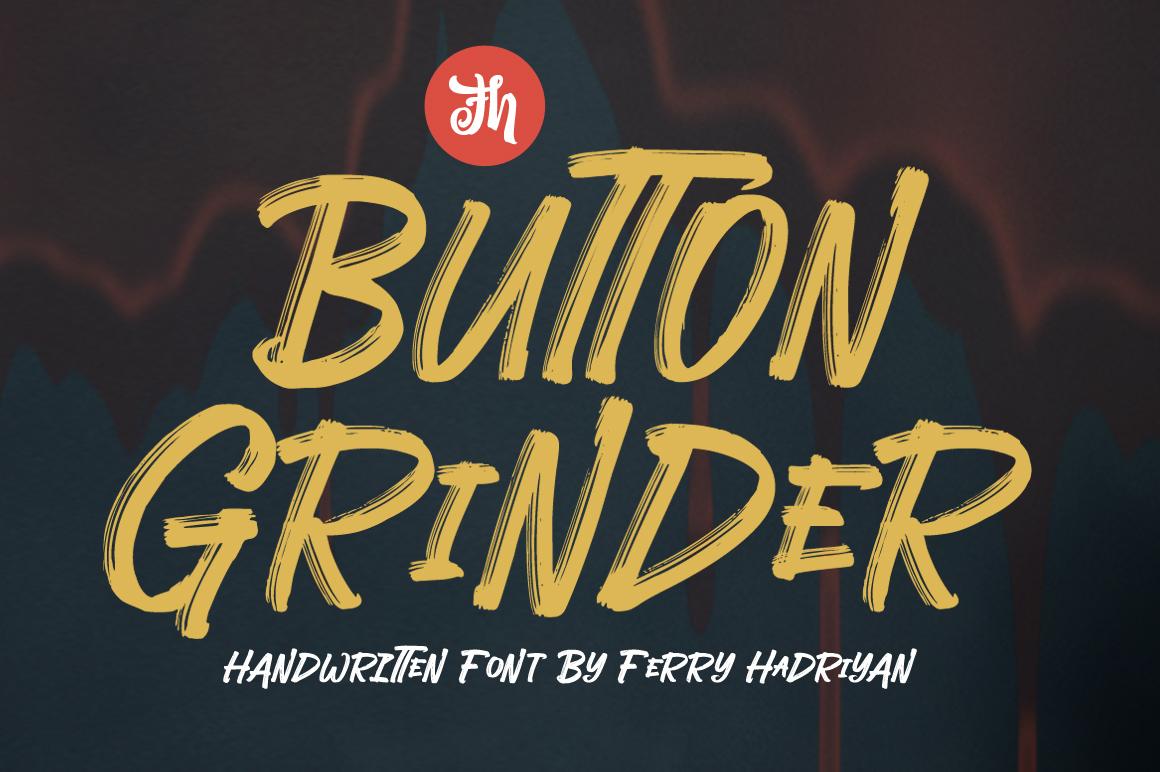
Button Grinder Font Description
Button Grinder is a unique and interesting display font. Incredibly versatile, this font will fit a wide pool of designs. Fall in love with its incredibly stylish look and use it to create spectacular designs!